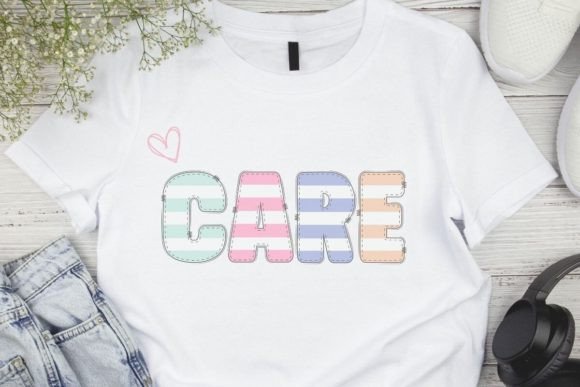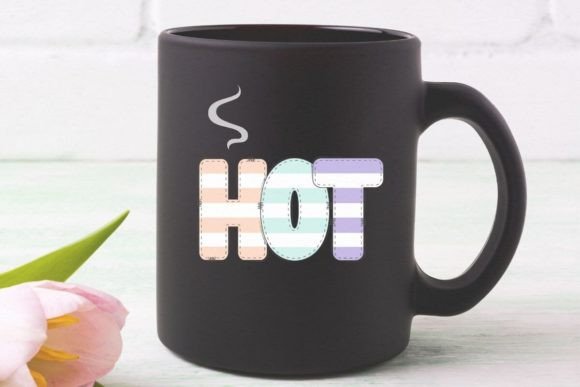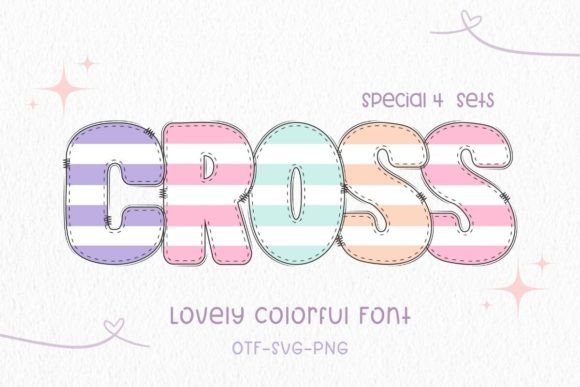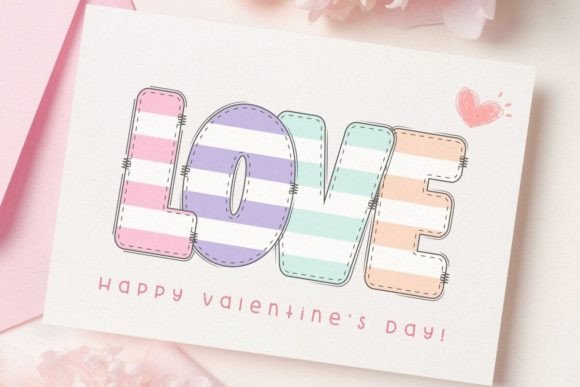
Cross Font
About the Cross Font
Crafted with precision, the Cross Font is ready to bring your ideas to life. Cross is a cute colorful font. This font has 4 color pastels and is perfect for all your Valentine’s Day or summer-themed projects. You can use it to design products such as banners, content, mugs, cards, shirts, stationery, social media posts, and more!